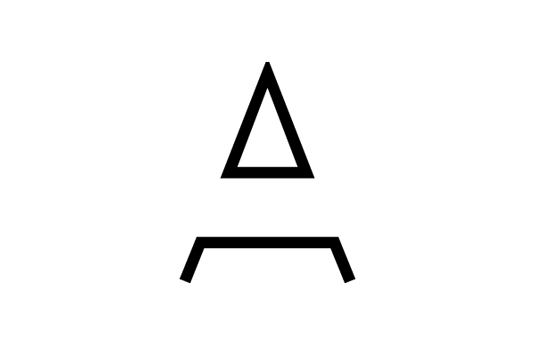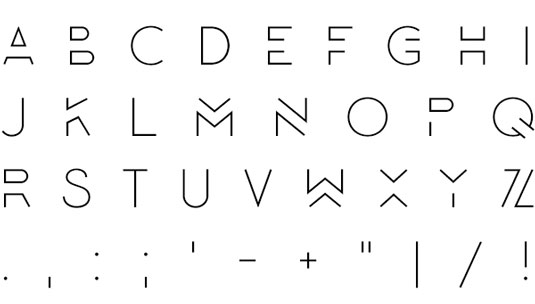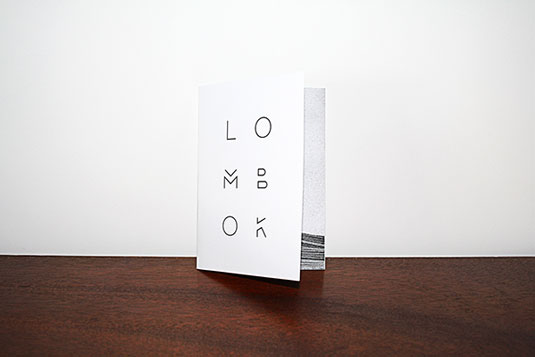
Font of the day: Lombok
Lombok by Alexandre Pietra
If you're on the hunt for an attention-grabbing typeface, look no further than Lombok. The unique design was created by student Alexandre Pietra, who now generously offers the font free for personal use.